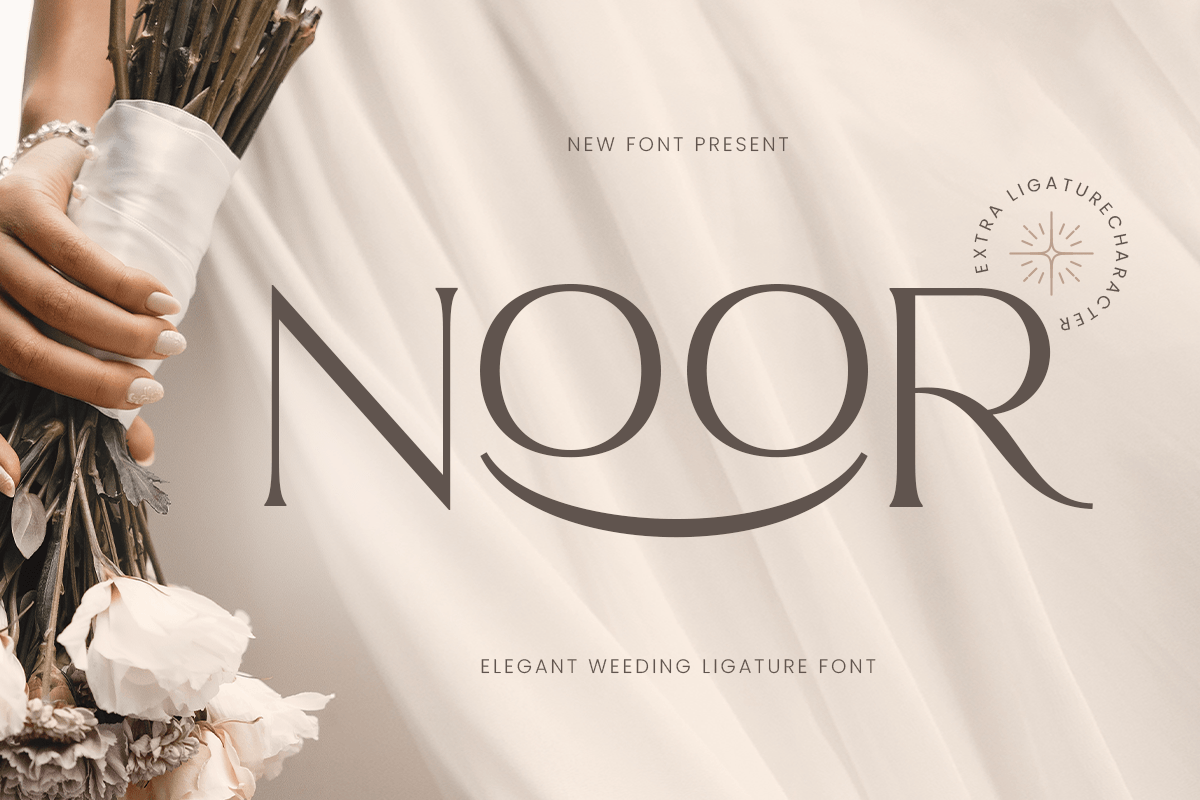
Noor
-Elegant Weeding Ligature Font
Noor - Elegant Weeding Ligature Font
NOOR is an elegant wedding ligature font crafted to bring romance, softness, and premium refinement to your typography. Designed with graceful ligature connections and a polished rhythm, this typeface creates a beautiful signature feel that’s perfect for wedding-focused visuals and luxury feminine branding.
Built for elegant applications, NOOR works seamlessly across wedding invitations, save-the-dates, monograms, logos, wordmarks, venue signage, menu cards, packaging, labels, and social media announcements. The ligatures add a custom, handcrafted touch—helping every design feel more intimate, elevated, and professionally styled across print and digital formats.
Whether you’re designing for a bridal brand, luxury event planner, wedding photographer, or romantic stationery suite, NOOR provides a refined ligature foundation that makes your typography feel timeless, graceful, and instantly memorable.
Inspiration Behind NOOR
NOOR is inspired by romantic wedding stationery and luxury signature typography—where elegant connections and soft rhythm create an intimate, premium mood. The design focuses on graceful ligature flow and refined balance to support bridal branding, invitation design, and timeless wedding visuals with an elevated, sophisticated presence.
NOOR Font Features:
• Elegant wedding ligature letterforms with refined romantic character
• Perfect for invitations, monograms, logos, and bridal wordmarks
• Smooth ligature flow for a custom, signature-style appearance
• Wedding invitations, save-the-dates, RSVP cards, and stationery suites
• Bridal branding, luxury event planners, and romantic identity systems
• Logos, wordmarks, monograms, and signature headline typography
• Signage, menu cards, gift tags, packaging, and elegant labels
• Social media announcements, websites, and wedding marketing assets